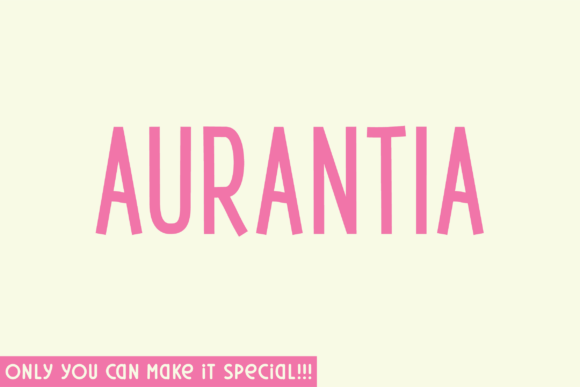
The Elusive Font: A Designer’s Quest for the Perfect Typeface
I still remember the countless hours I spent searching for the perfect font for a client’s luxury skincare brand. The brief was simple: elegant, sophisticated, and airy. Sounds easy, right? But as I scrolled through font after font, I realized that finding the right one was like looking for a needle in a haystack. That was until I stumbled upon Aurantia, a stunning sans-serif that stole my heart.
First Impressions: Aurantia Font
Aurantia is a tall, sophisticated sans-serif that balances grace with a human touch. Its elongated letterforms feature a subtle, organic “wiggle” in the strokes, giving it an authentic, hand-inked appearance. This unique characteristic sets it apart from other sans-serifs and makes it perfect for minimalist layouts.
What I Love About Aurantia ✨
- âś… Elegant and sophisticated, perfect for high-end branding
- âś… Unique, hand-inked appearance that adds a touch of humanity
- ✅ High-waisted proportions and airy structure for a “breathable” aesthetic
- âś… Versatile and works well in various design applications
- ⚠️ Some users may find the font too delicate for certain design applications
- ⚠️ Limited use of bold weights, which may not be suitable for all designs
The Story Behind Aurantia
Aurantia was designed with the intention of creating a typeface that embodies the perfect balance of elegance and humanity. The designer aimed to craft a font that would be both sophisticated and approachable, making it suitable for a wide range of design applications.
| What is the vibe of Aurantia? | Aurantia has a sophisticated, graceful, and airy vibe, making it perfect for minimalist layouts and luxury branding. |
| What are the ideal use cases for Aurantia? | Aurantia is ideal for minimalist magazine mastheads, luxury candle labels, and “Clean Girl” aesthetic social media templates. |
| Can I use Aurantia for body text? | While Aurantia is a beautiful font, it may not be the best choice for body text due to its delicate nature. It’s better suited for headlines and titles. |
| Is Aurantia suitable for digital applications? | Yes, Aurantia can be used for digital applications, but it may require some adjustments to ensure optimal legibility on various devices. |